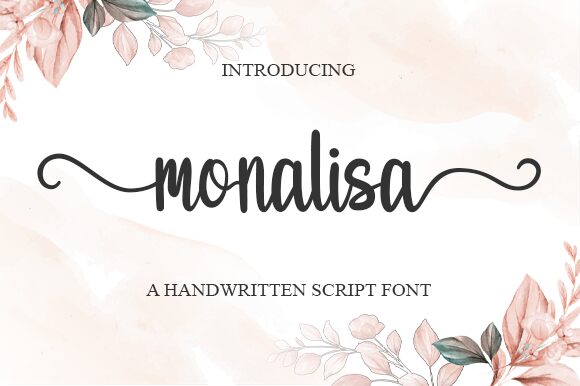
Monalisa
Monalisa is a charming handwritten font designed by Graphix Line Studio. Its semi-condensed width adds a touch of elegance to any project, making it perfect for invitations, wedding stationery, and greeting cards. This versatile typeface has a playful yet sophisticated style that's sure to catch the eye and add character to your designs. From branding projects to social media graphics, Monalisa is the ideal choice for anyone looking for a unique and creative font. Add a personal touch to your work with Monalisa - the perfect semi-condensed font for all your creative needs!